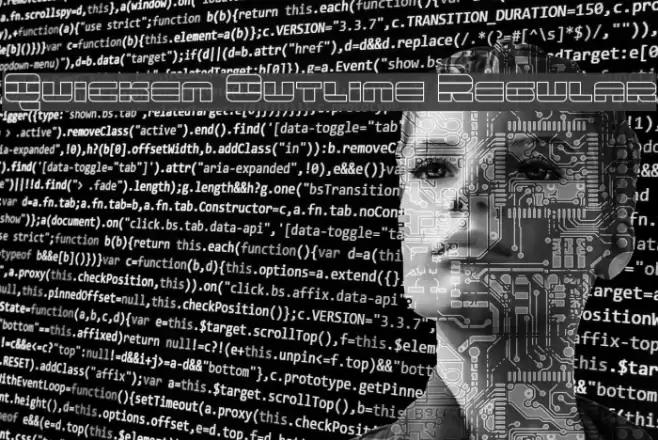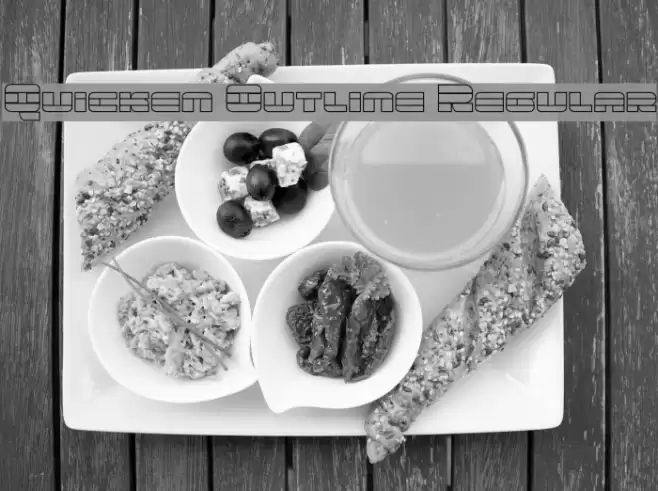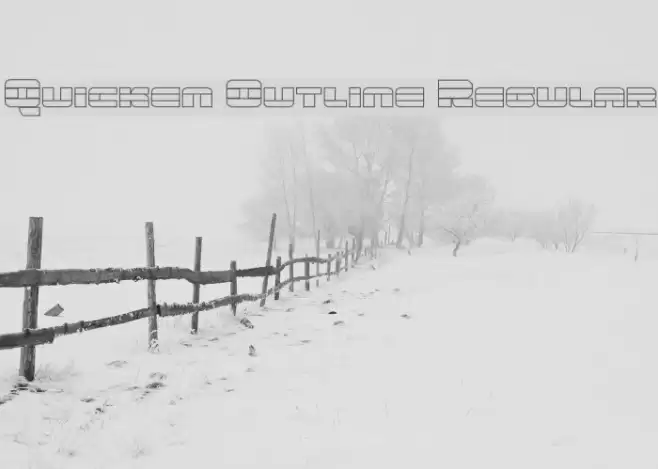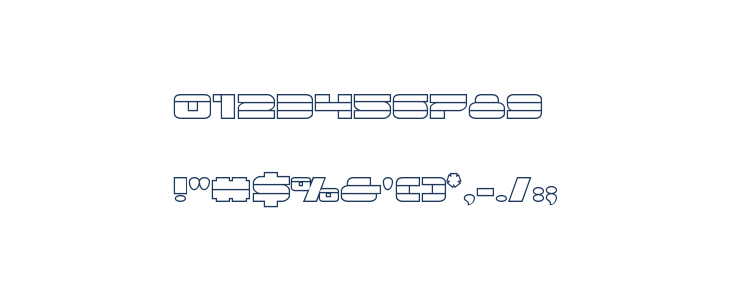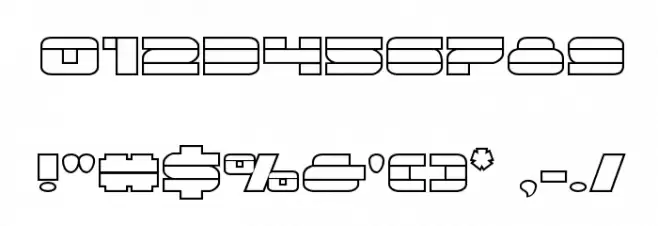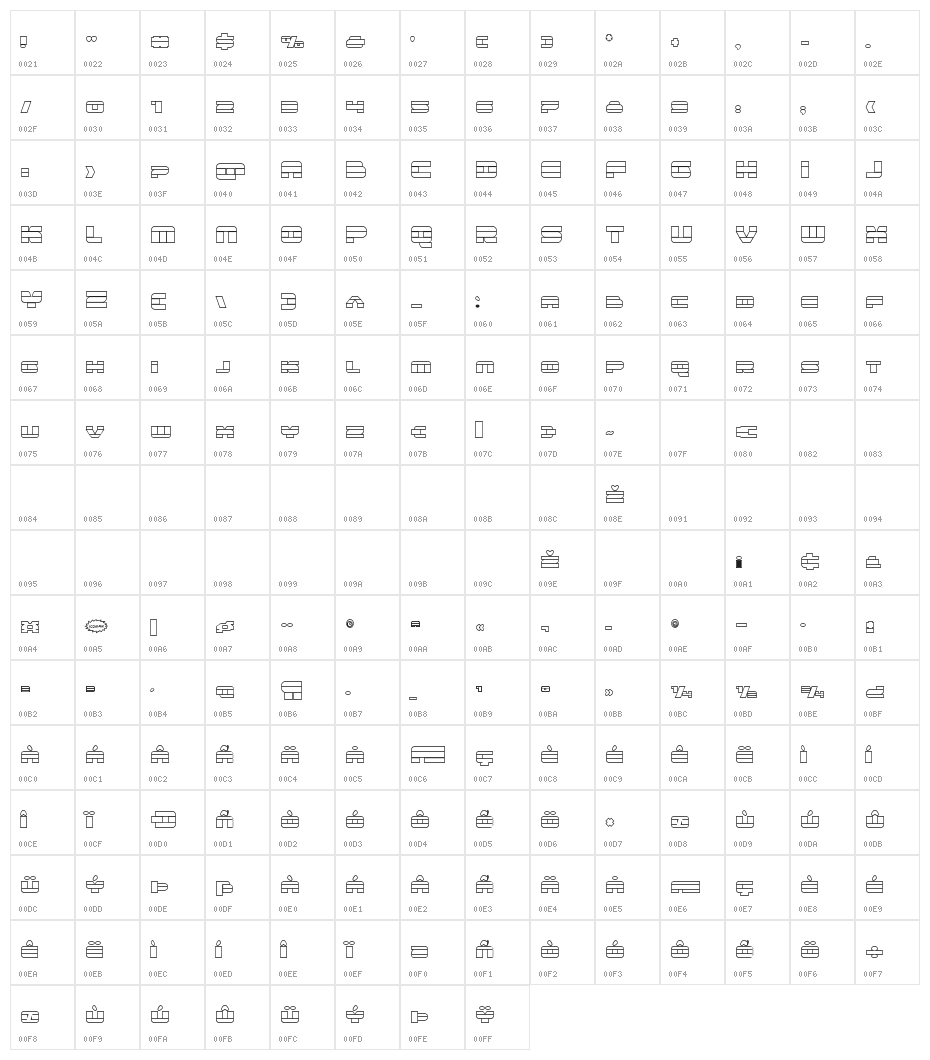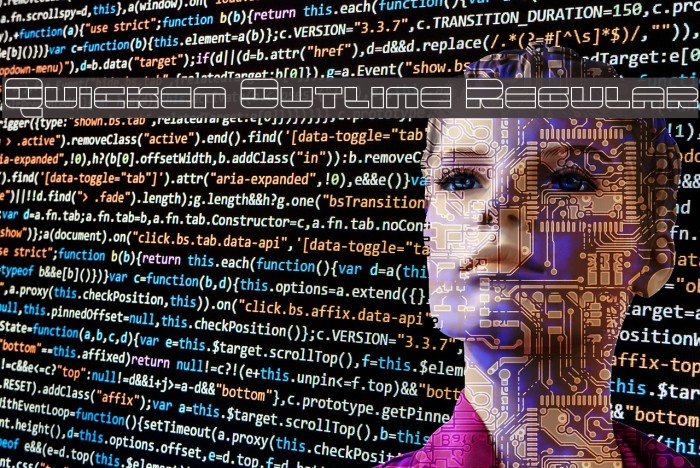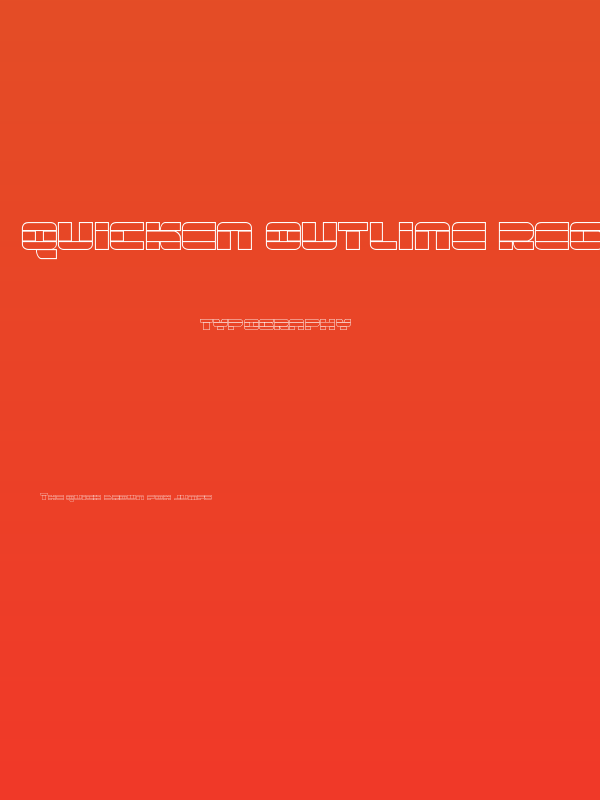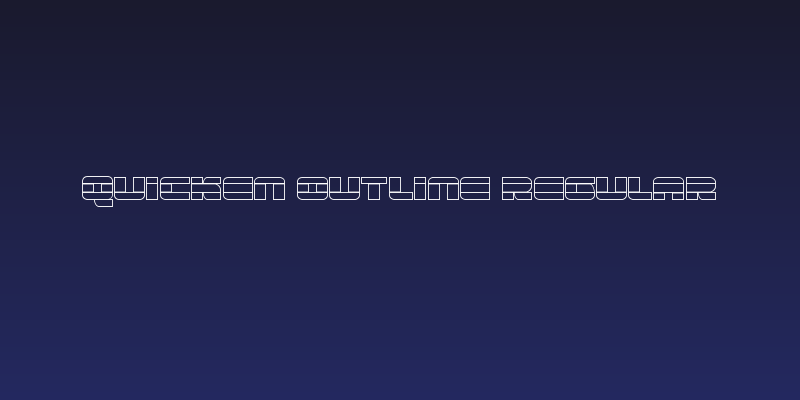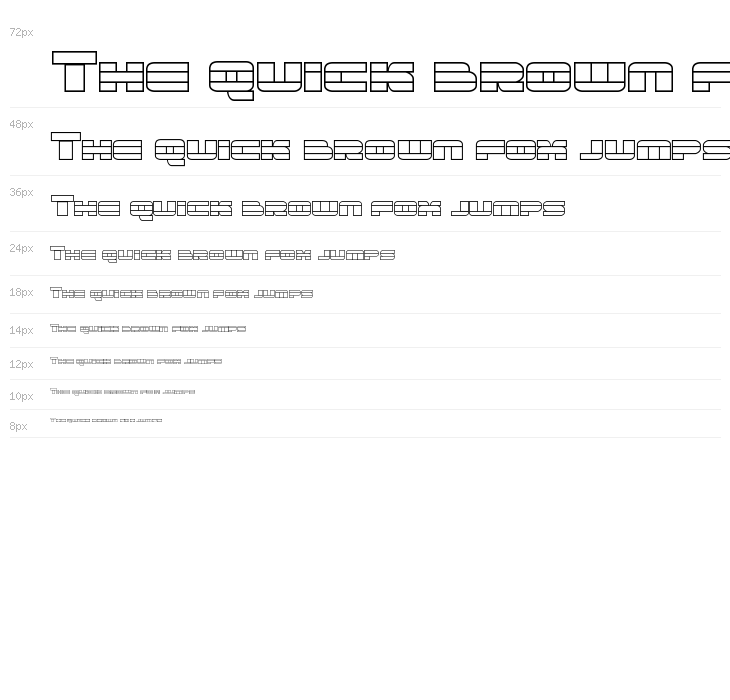
Quicken Outline Regular Font
Quicken Outline Regular Description
This font features a unique outline style with a futuristic and geometric design. Each character is constructed with bold, clean lines that form a hollow, box-like appearance, giving it a modern and tech-inspired look. The uppercase and lowercase letters maintain a consistent structure, emphasizing symmetry and balance. The numerals and special characters follow the same design principles, ensuring uniformity across all glyphs. This font's distinct style makes it stand out, ideal for projects that require a contemporary and innovative aesthetic.
A futuristic, geometric outline font with a modern, tech-inspired design from Uncategorized fonts.
- Proposed Projects: Ideal for technology branding, sci-fi posters, digital media, and modern advertising campaigns.